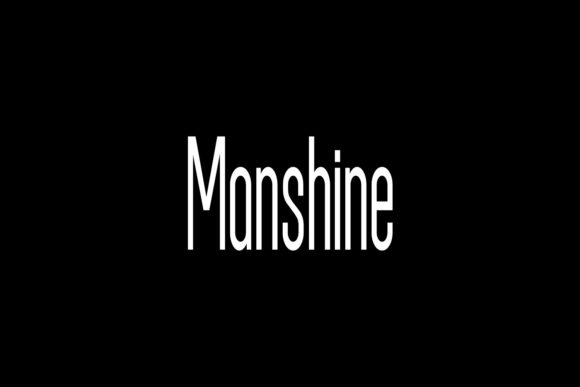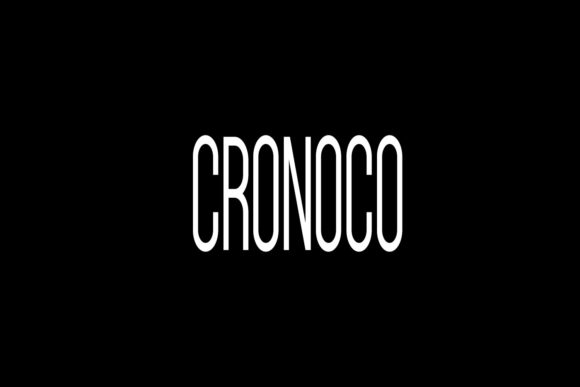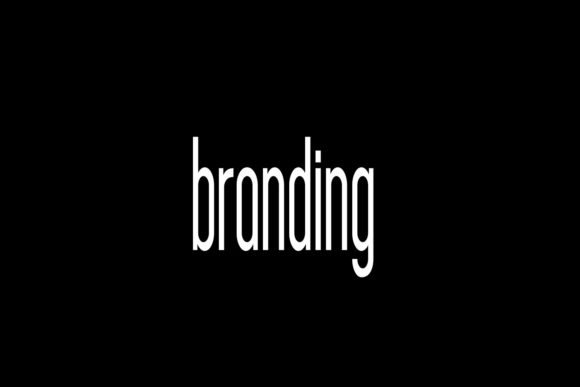
Discover the Perfect Ride for Your Designs: Bronco Font
Have you ever found yourself stuck on a design project, struggling to find the perfect font to bring your vision to life? I know I have. That’s why I’m excited to introduce you to the Bronco Font, a sleek and modern sans serif font that’s about to become your new go-to.
Bronco Font is designed to add a unique touch to your web designs, business cards, and any other creative project that needs a little extra oomph. Its thin and minimalist aesthetic makes it the perfect choice for designers who want to create a clean and modern look without sacrificing readability.
Whether you’re a seasoned pro or just starting out, the Bronco Font is a valuable addition to your design toolkit. Its versatility and ease of use make it an ideal choice for any project, from branding to publishing, and everything in between.
Bronco Font Key Features
- Unique Characteristics: The Bronco font features a distinctive, rugged design with a mix of modern and vintage elements, making it perfect for creating a bold and eye-catching visual identity.
- Scalability: The Bronco font is designed to be highly scalable, ensuring that it remains legible and visually appealing even at very large or very small font sizes.
Designer Review: Bronco Font
First impressions matter, and Bronco Font doesn’t disappoint. It’s a bold, modern sans-serif font that’s sure to turn heads. The unique character sets ✨ are where this font truly shines – the geometric shapes and clean lines give it a unique, edgy feel that’s perfect for making a statement.
- The bold weights ✨ are where Bronco Font truly comes alive – the font’s thick lines and bold strokes make it perfect for headlines and titles.
- The ligatures ✨ add a touch of sophistication and elegance, making it suitable for a wide range of design applications.
That being said, Bronco Font isn’t without its limitations ⚠️. One of the main concerns is its limited language support ⚠️ – the font may not be suitable for languages that require more complex character sets.
Overall, I’d say Bronco Font is a solid choice for designers looking to add some edge to their designs. While it may not be perfect, its unique character sets and bold weights make it a great option for making a statement. Just be aware of its limitations and use it accordingly.
For a professional look, pair the Bronco Font with a clean and simple background.
For a bold and eye-catching design, use the Bronco Font in combination with bold lines and shapes.
For a professional presentation, use the Bronco Font in combination with clear headings and concise bullet points.
The Bronco Font is ideal for:
Outdoor and sports-related designs.
Rugged and adventurous brand identities.
Headlines and titles that require a bold and attention-grabbing effect.